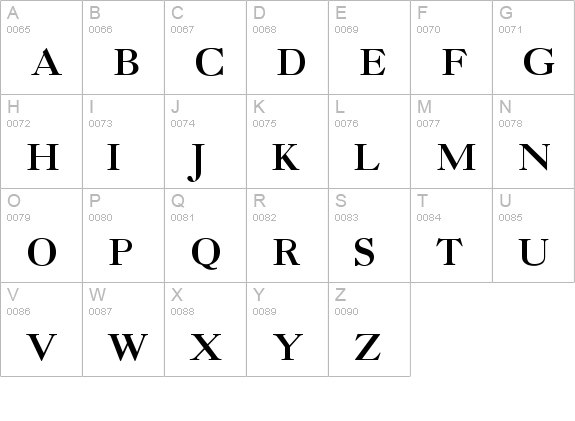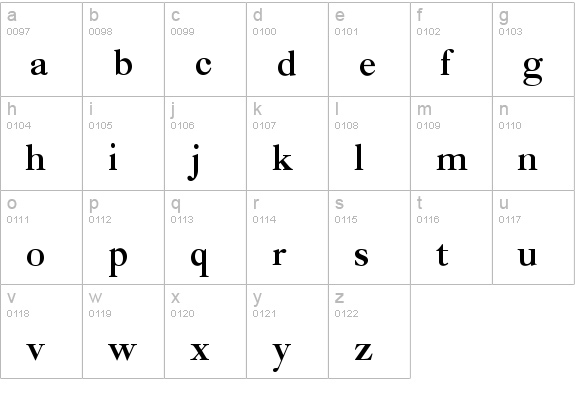
CaslonBoldL Font Details
CaslonBoldL is a timeless and elegant font that exudes sophistication and classic charm. With its bold and commanding presence, this font is perfect for making a statement in headlines, titles, and branding materials. The strong and sturdy letterforms of CaslonBoldL demand attention and convey a sense of authority and reliability. What sets CaslonBoldL apart is its versatility - it can be used in a variety of design projects, from print materials to digital platforms, without losing its impact. Whether you are designing a magazine layout, creating a logo, or crafting a poster, CaslonBoldL will elevate your design and give it a touch of sophistication. And the best part? CaslonBoldL is available for free download at FontsMarket.com, making it accessible to designers and creatives looking to add a touch of classic elegance to their projects. Don't miss out on the opportunity to enhance your designs with the timeless beauty of CaslonBoldL.